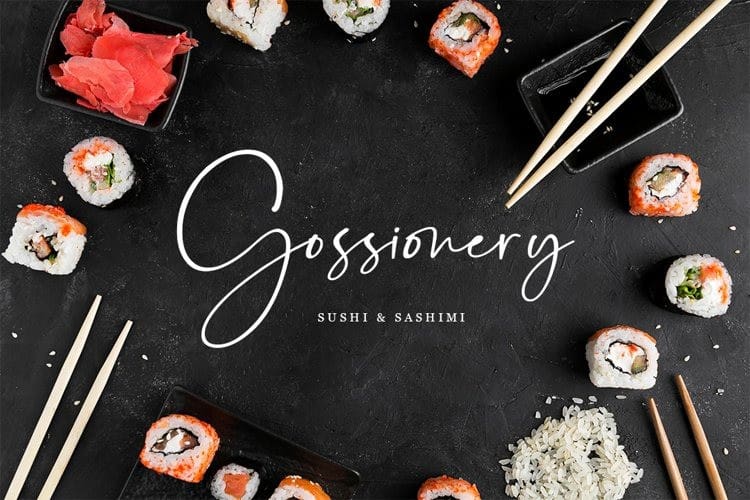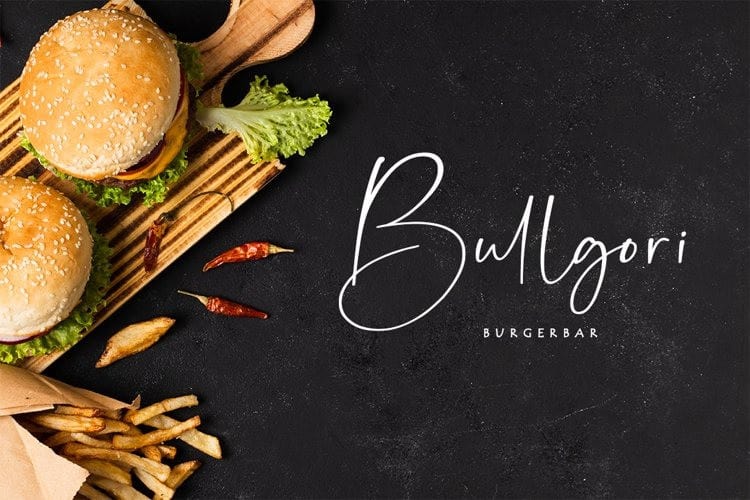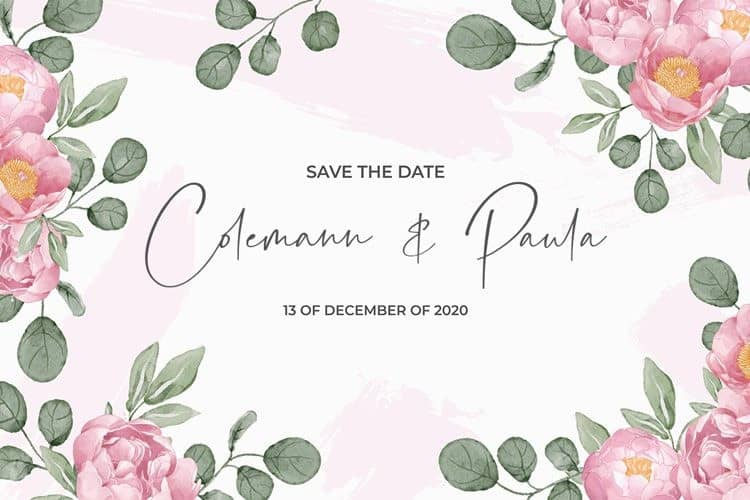
Postless Script Font
Postless Script Font is signature script font with elegant and classy style for your perfect project. It’s designed and shared by Dav studio. Postless is an natural handwritten font that is suitable for branding, signature, wedding invitation, business card, and other your DIY projects. You will get lowercase and uppercase letters, numerals and punctuation, multilingual symbols.